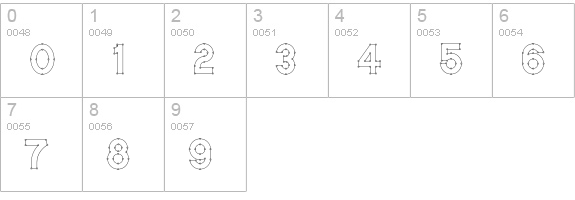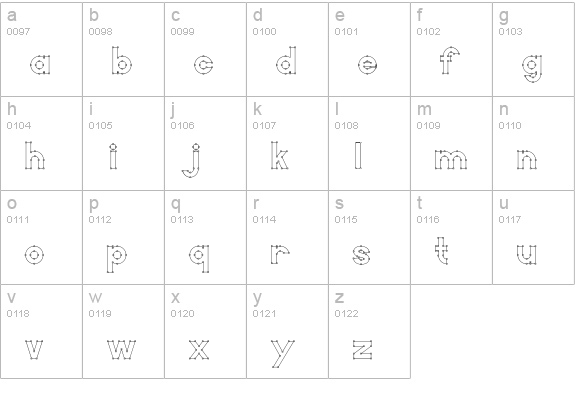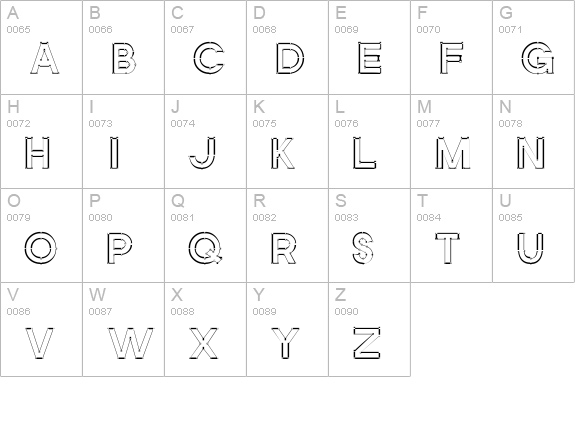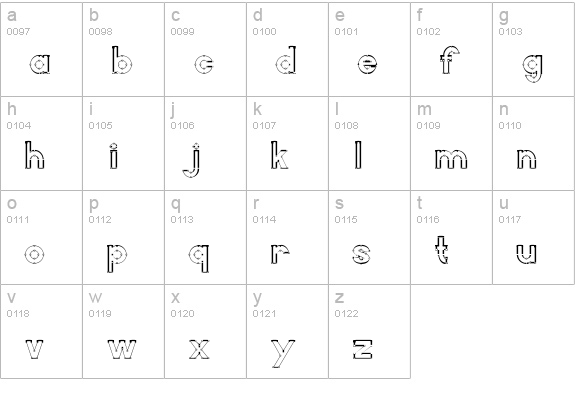
Vector Font Details
Introducing Vector font, a stunning display typeface that combines elegance with modernity. This versatile font is perfect for creating eye-catching headlines, logos, and branding materials. With its clean and sleek lines, Vector font exudes a sense of sophistication and professionalism. What sets Vector font apart is not just its exceptional design, but also the fact that it is freely available to download at FontsMarket.com. Yes, you read that right - this remarkable font can be yours without any cost! Now you can elevate your design projects without breaking the bank. Whether you're a professional designer or an aspiring creative, Vector font offers endless possibilities. Its wide range of characters and glyphs allows you to play with different styles and compositions, making it an ideal choice for various design applications. From website headers to print advertisements, Vector font will effortlessly captivate your audience. The clean and minimalist aesthetic of Vector font lends itself perfectly to contemporary design trends. Its sharp edges and balanced proportions create a visually pleasing composition that is both timeless and modern. With Vector font, you can achieve a sleek and polished look that will make your designs stand out from the crowd. Don't miss out on this unique opportunity to download Vector font for free at FontsMarket.com. With just a few clicks, you can add this exceptional typeface to your font library and unlock a world of design possibilities. So why wait? Start creating stunning visuals today with Vector font, the free font that will take your designs to new heights.